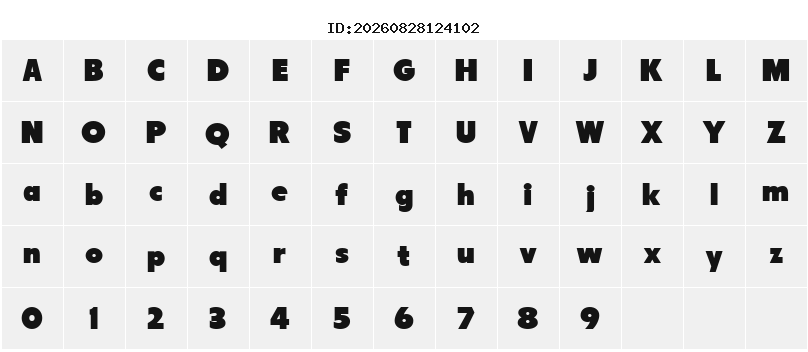
Tondu Beta Preview
• Font Name: Tondu Beta
• Full Font Name: Tondu Beta
• PostScript Name: Tondu-Beta
• Designer: Jonathan Hill
• Manufacturer: Jonathan Hill
About Tondu Beta.ttf
Tondu Beta.ttf is a modern, elegant sans-serif font designed for ultimate readability and visual harmony. Perfect for branding, headlines, web design, and print materials.